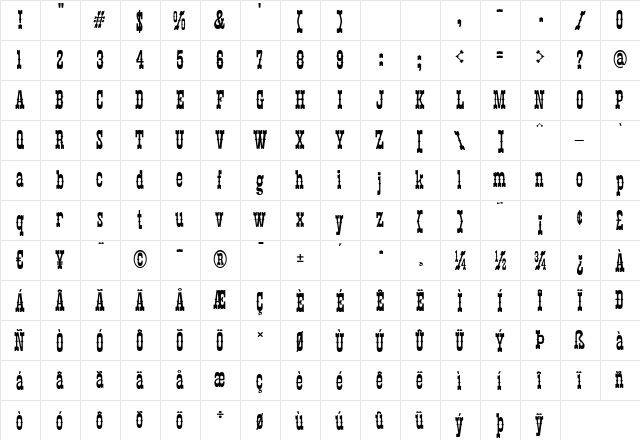
Western Classic Regular
Design Context for Western Classic Typeface
Western Classic echoes the hand-painted signage and woodblock typography of the American frontier, with a warm, rugged personality.
A natural fit for craft spirits, ranch branding, rodeo events, and Americana-inspired design work.
Font Pairing: Combine Western Classic with a simple slab or neutral sans — period-accurate companions reinforce the vintage feel without competing for attention.
Pro Tip: Use Western Classic for short, impactful bursts of text — it shines in poster headlines and product names rather than extended copy.